Choosing from fancy cursive fonts for weddings starts with the job your typography must do. Consider the words, their final size, and the mood of the project. The options below are organized to help you compare useful directions before testing candidates in your own layout.
How to evaluate the options
Set the real headline, name, or label in each candidate. Check legibility at the final size, compare the capitals and repeated letters, and leave enough room for decorative details. Use a quieter companion font for long descriptions and other supporting text.
| Font | Good starting point |
|---|---|
| Delight Font | headlines, logos |
| Randy Sofia Font | invitations, wedding designs |
| Angelitta Font | invitations, quotes |
| Gastonia Script Font | wedding designs, branding |
| Zephan Font | invitations, wedding designs |
| Fesamore Script Font | logos, wedding designs |
| Over Thingking Font | logos, branding |
| Fantasia Font | logos, branding |
| Gathering Day Font | headlines, display text |
| Lucifasta Font | display text, headlines |
| Luxodia Signature Font | logos, branding |
| Handmade Calligraphy Font | logos, invitations |
Delight Font for headlines
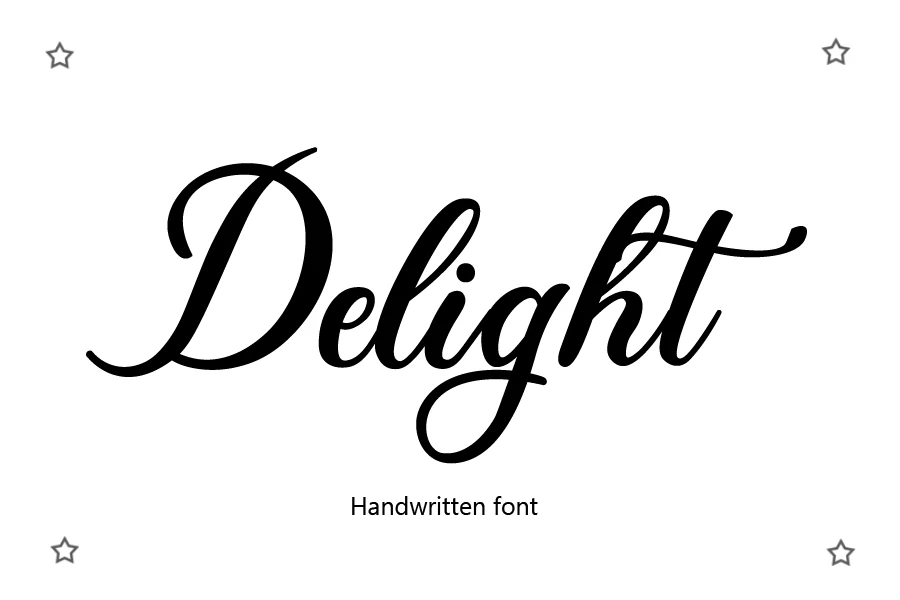
Delight Font is worth testing for headlines, logos, and merch design. Look for a handwritten character and display-focused letterforms when comparing it with other options. Test readability before setting longer phrases.
Randy Sofia Font for invitations
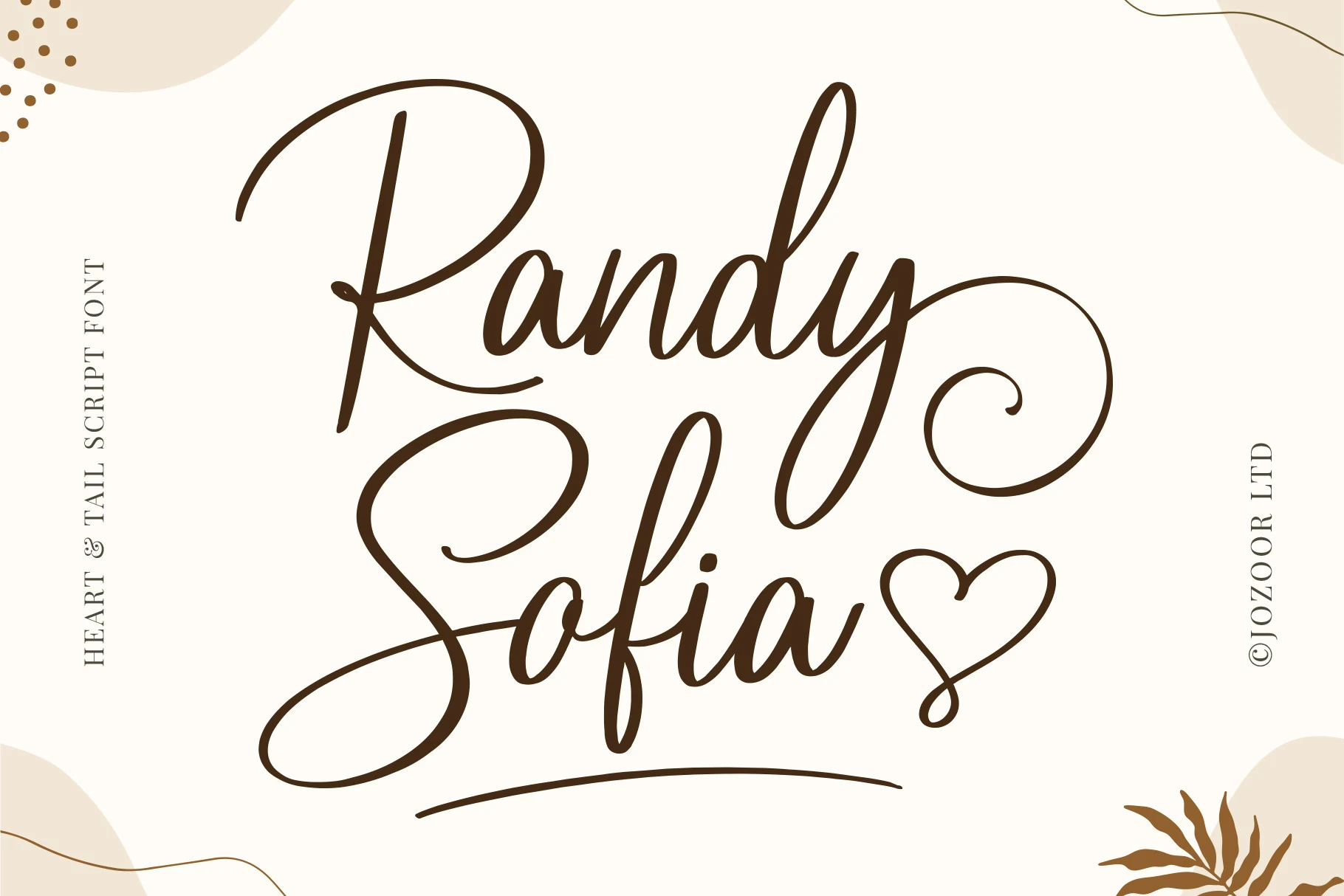
For invitations, wedding designs, and logos, consider Randy Sofia Font. Its design draws on a handwritten character and display-focused letterforms. Test readability before setting longer phrases.
Angelitta Font for invitations
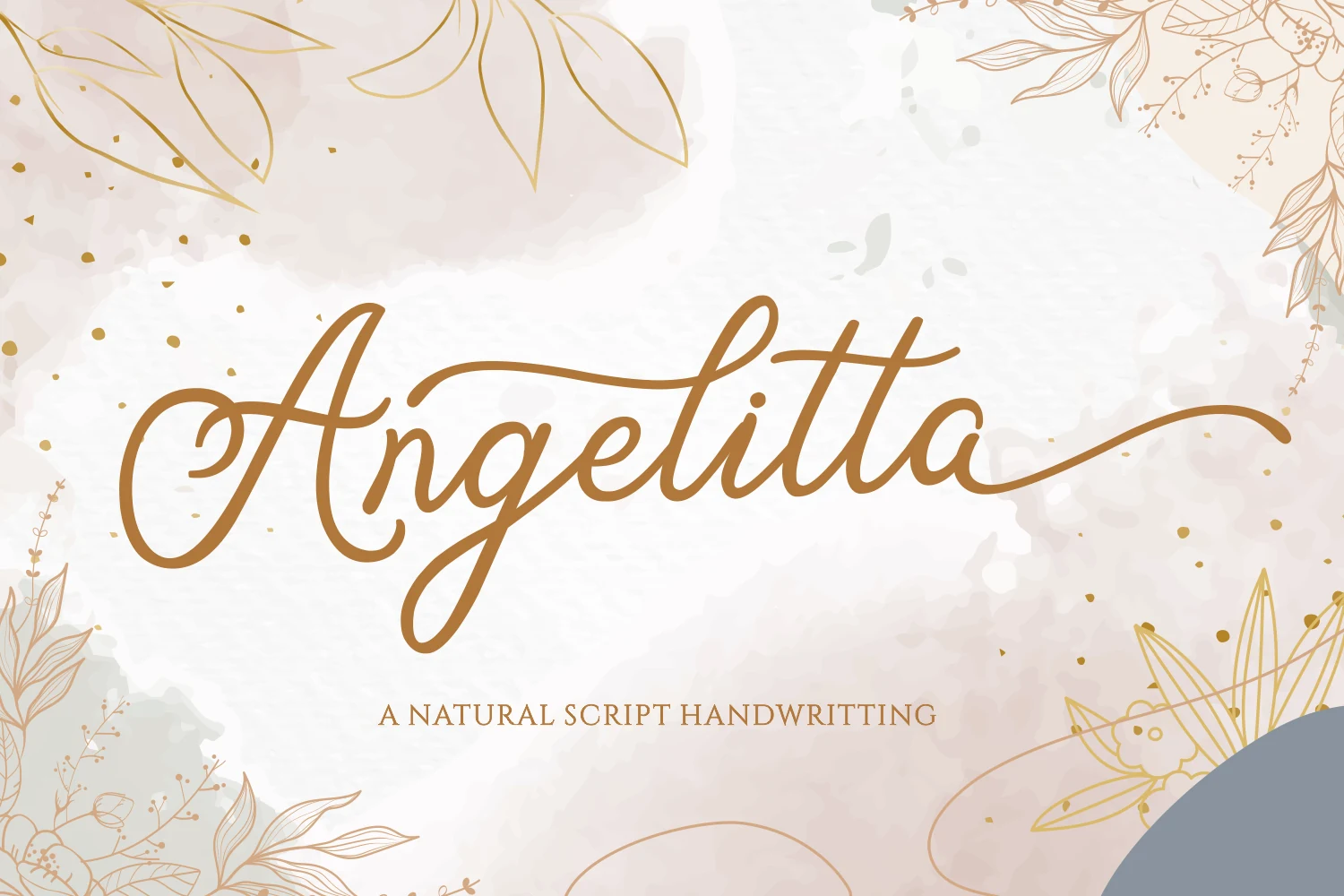
Angelitta Font can anchor invitations, quotes, and logos. The main visual cues are a handwritten character and display-focused letterforms. Test readability before setting longer phrases.
Gastonia Script Font for wedding designs
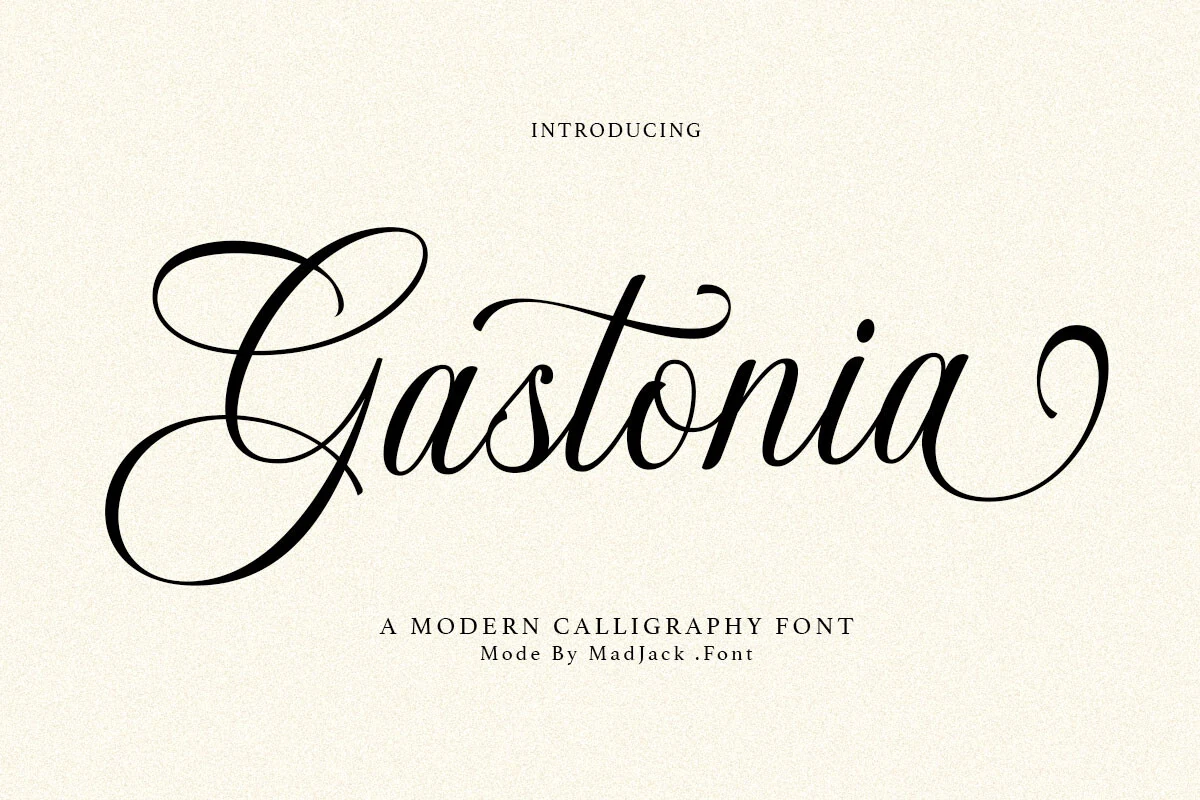
Gastonia Script Font is worth testing for wedding designs, branding, and packaging. Look for flowing script forms and a handwritten character when comparing it with other options. Test letter joins and capitals in your actual wording.
Zephan Font for invitations
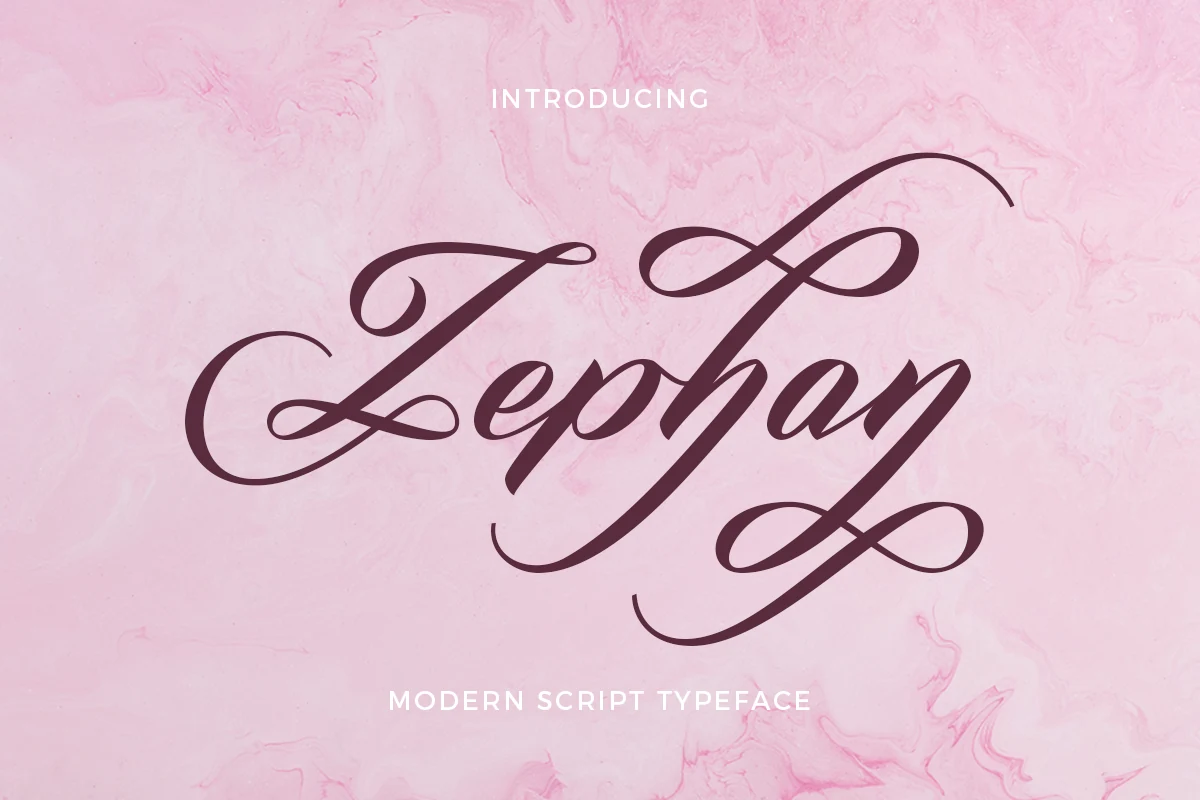
For invitations, wedding designs, and logos, consider Zephan Font. Its design draws on a handwritten character and display-focused letterforms. Test readability before setting longer phrases.
Fesamore Script Font for logos
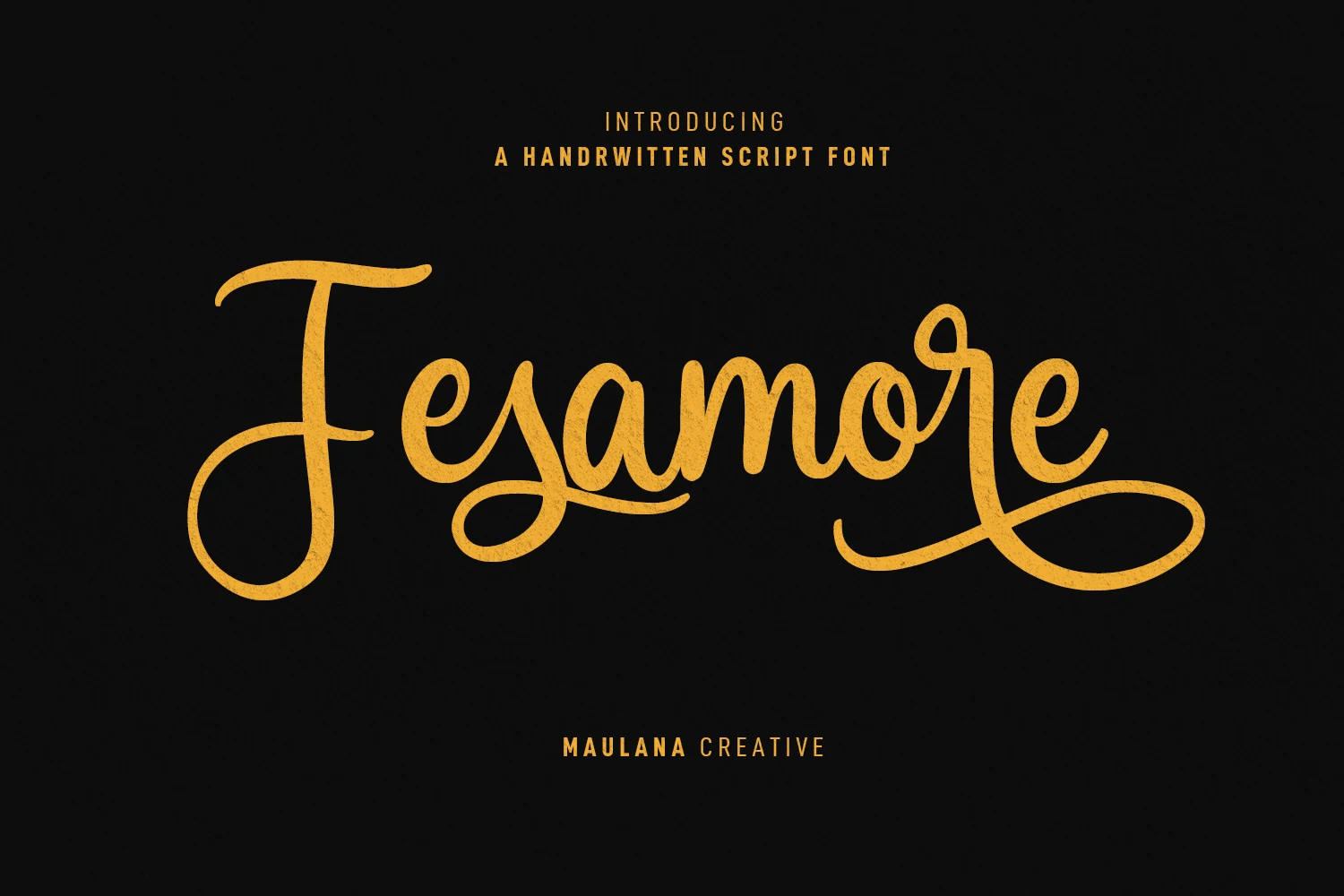
Fesamore Script Font can anchor logos, wedding designs, and invitations. The main visual cues are flowing script forms and a handwritten character. Test letter joins and capitals in your actual wording.
Over Thingking Font for logos
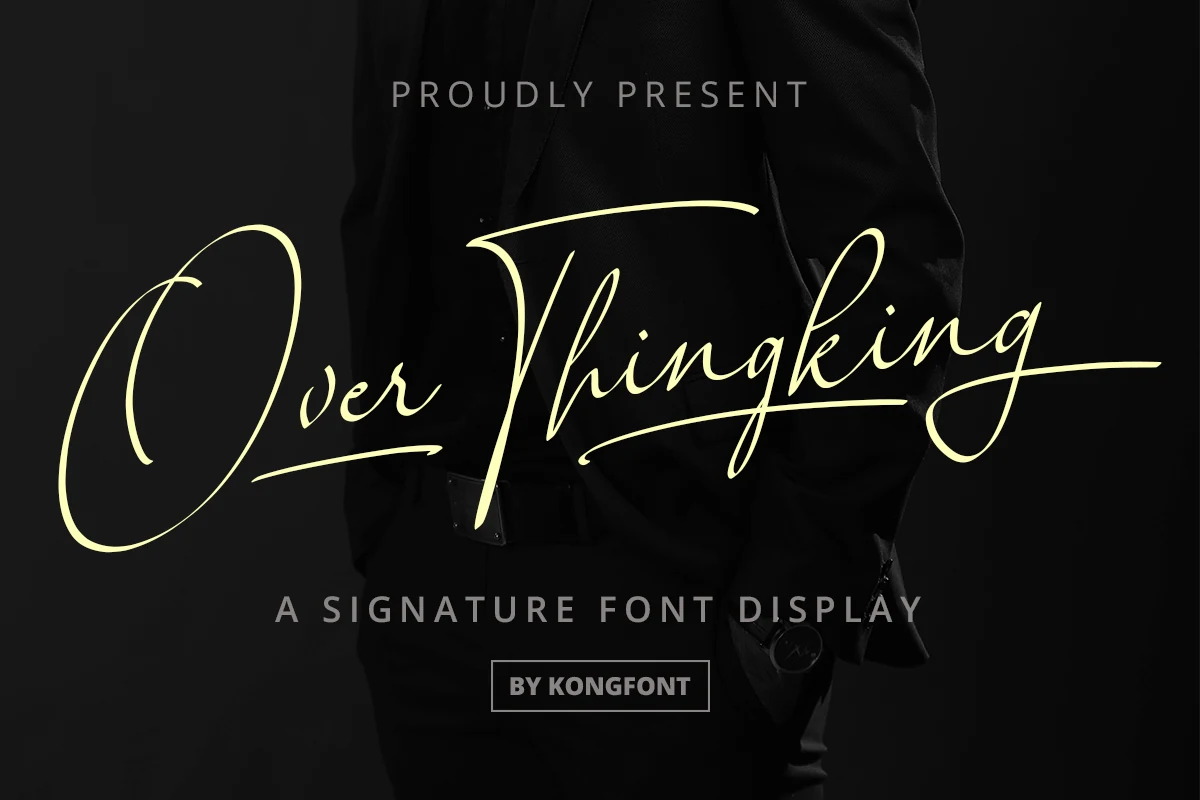
Over Thingking Font is worth testing for logos, branding, and short phrases. Look for rounded letter shapes and a handwritten character when comparing it with other options. Try it at both headline and label size to judge its clarity.
Fantasia Font for logos
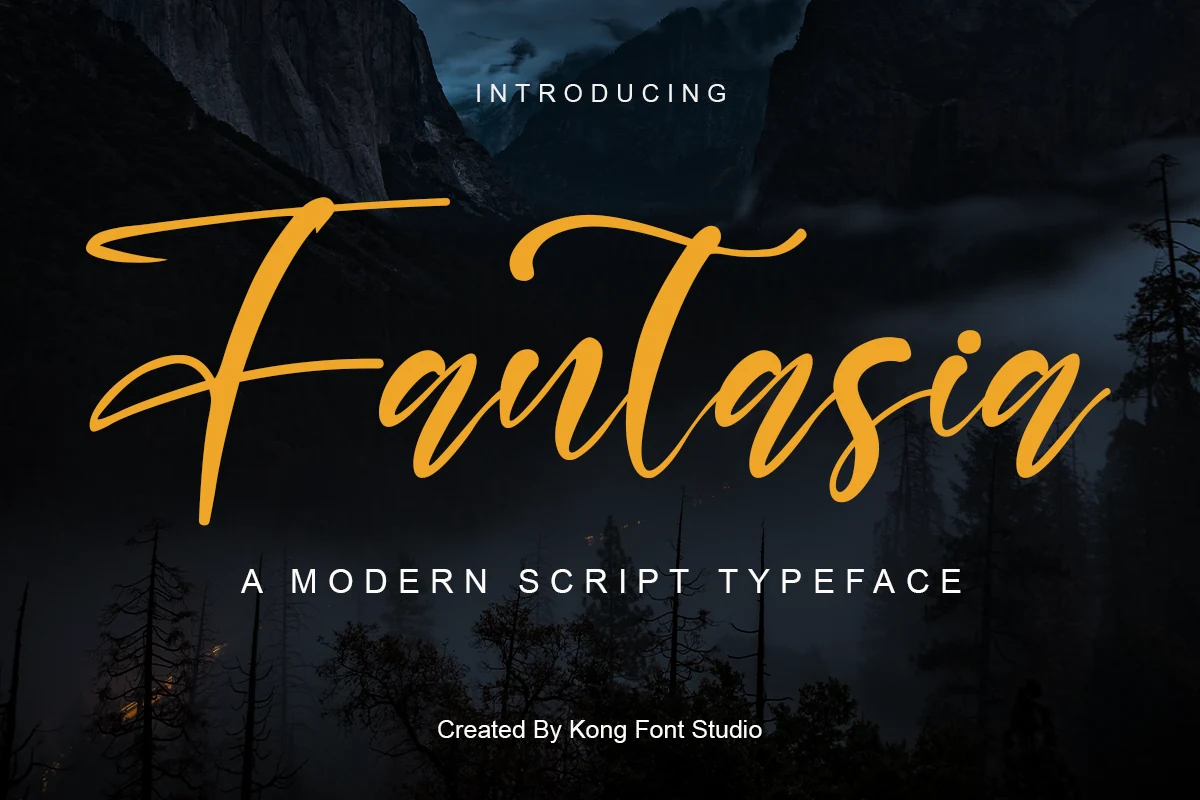
For logos, branding, and T-shirts, consider Fantasia Font. Its design draws on rounded letter shapes and a handwritten character. Try it at both headline and label size to judge its clarity.
Gathering Day Font for headlines
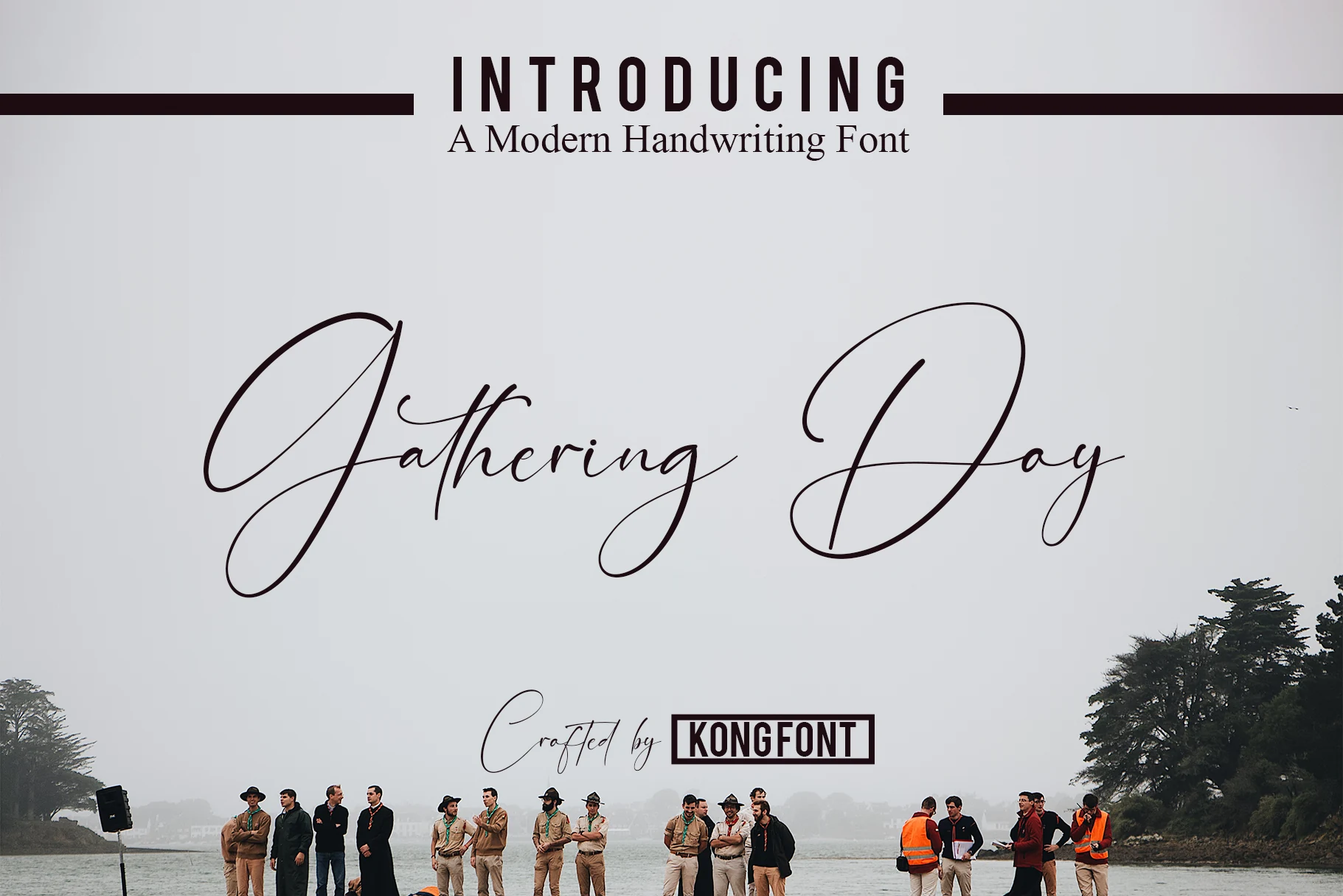
Gathering Day Font can anchor headlines, display text, and invitations. The main visual cues are rounded letter shapes and a handwritten character. Try it at both headline and label size to judge its clarity.
Lucifasta Font for display text
Lucifasta Font is worth testing for display text, headlines, and short phrases. Look for rounded letter shapes and a handwritten character when comparing it with other options. Try it at both headline and label size to judge its clarity.
Luxodia Signature Font for logos
For logos, branding, and business cards, consider Luxodia Signature Font. Its design draws on a handwritten character. Test readability before setting longer phrases.
Handmade Calligraphy Font for logos
Handmade Calligraphy Font can anchor logos, invitations, and wedding designs. The main visual cues are a handwritten character. Test readability before setting longer phrases.
Final checks before using a font